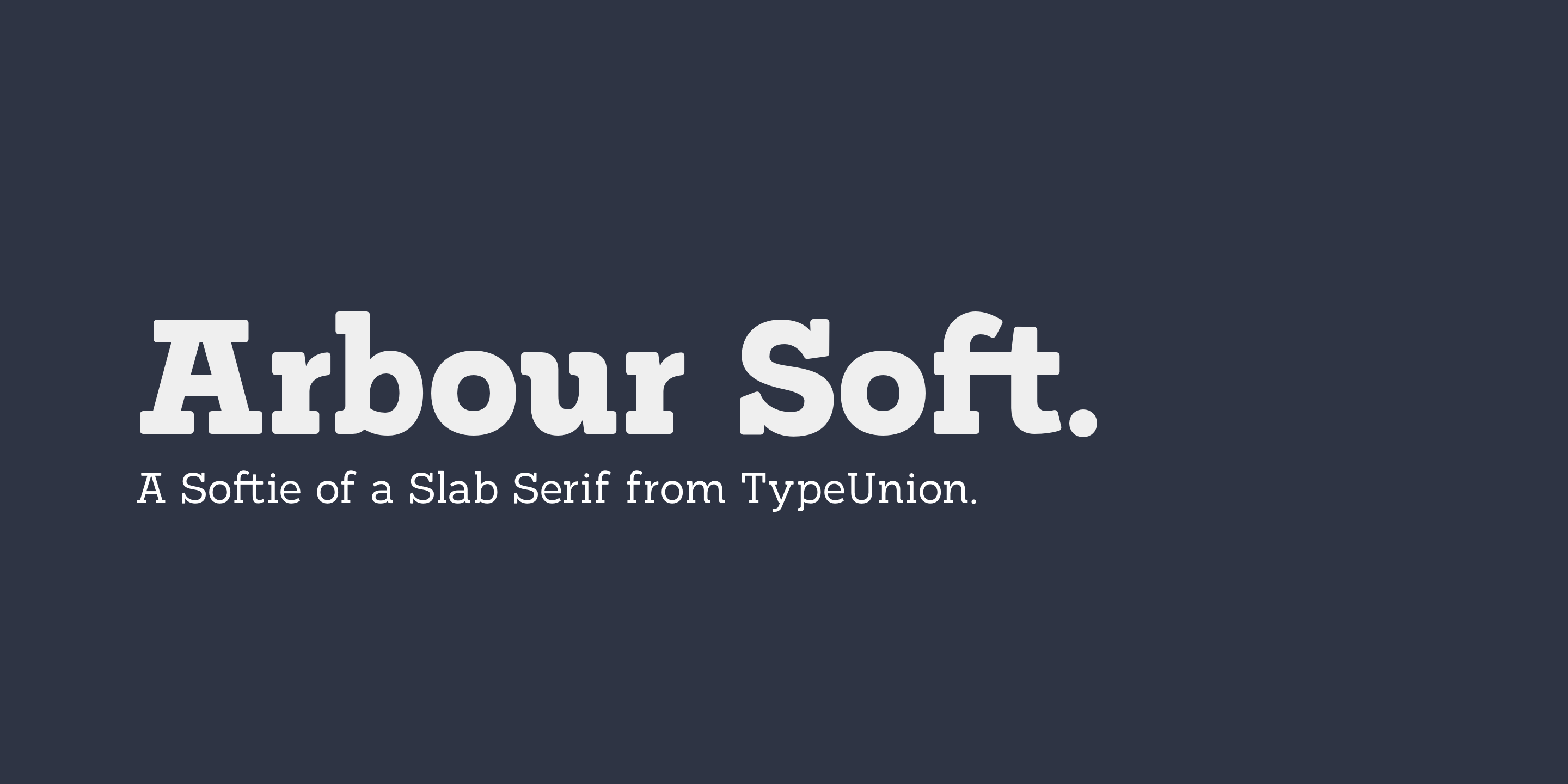
The Arbour Soft Font is an excellent choice for designs that aim for a warm, friendly, and distinctly approachable aesthetic with a modern touch. Imagine it gracing the branding of a cozy café, adding a gentle and inviting feel to a wellness blog, or bringing a comfortable, serene vibe to minimalist home decor packaging. It's also perfectly suited for handmade product labels, charming social media graphics, thoughtful stationery, and any project where you want to convey a sense of calm, simplicity, and a touch of personal warmth. Its often soft edges, organic forms, and approachable appearance make it ideal for conveying sincerity and a unique, artistic flair.
What makes the Arbour Soft Font so exciting is its ability to instantly infuse a design with a feeling of tranquility and authentic appeal. It frequently features subtle imperfections and a natural flow that makes it feel both unique and incredibly inviting. This font has a comforting and distinctive personality that can instantly elevate your design, making it feel both quaint and expressively artistic. It’s designed to capture attention with its unassuming beauty, ensuring your message is not just seen, but felt with a sense of delightful authenticity.
The Arbour Soft Font family typically includes a range of weights, from a lighter, more delicate cut to a more robust bold for emphasis, often accompanied by matching italic versions. This versatility allows designers to create nuanced visual hierarchies and add dynamic contrast within their typography. With its broad character set, it supports multiple languages, further expanding its global applicability for various casual and modern design projects. Discover the comfortable clarity of Arbour Soft Font Free Download for your next creative endeavor.